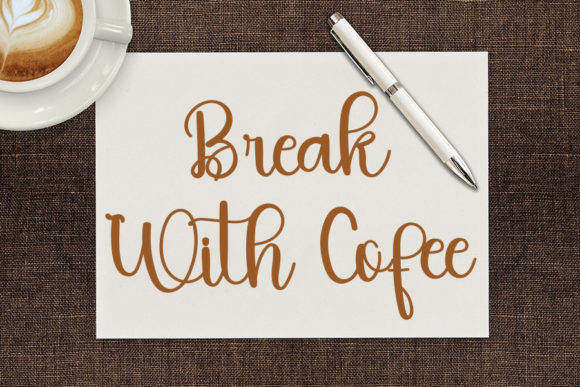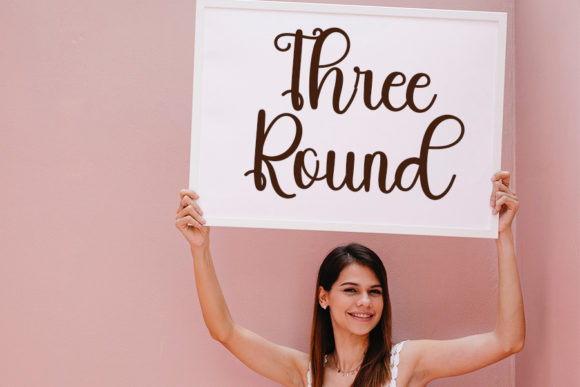
Gupphy Font
db-ku.com - Script & Handwritten -- Gupphy is a stylish handwritten font with a contemporary atmosphere and impeccable form, inspired by a timeless classic calligraphy. Balanced and varied, this font was designed to enhance the beauty of your projects.